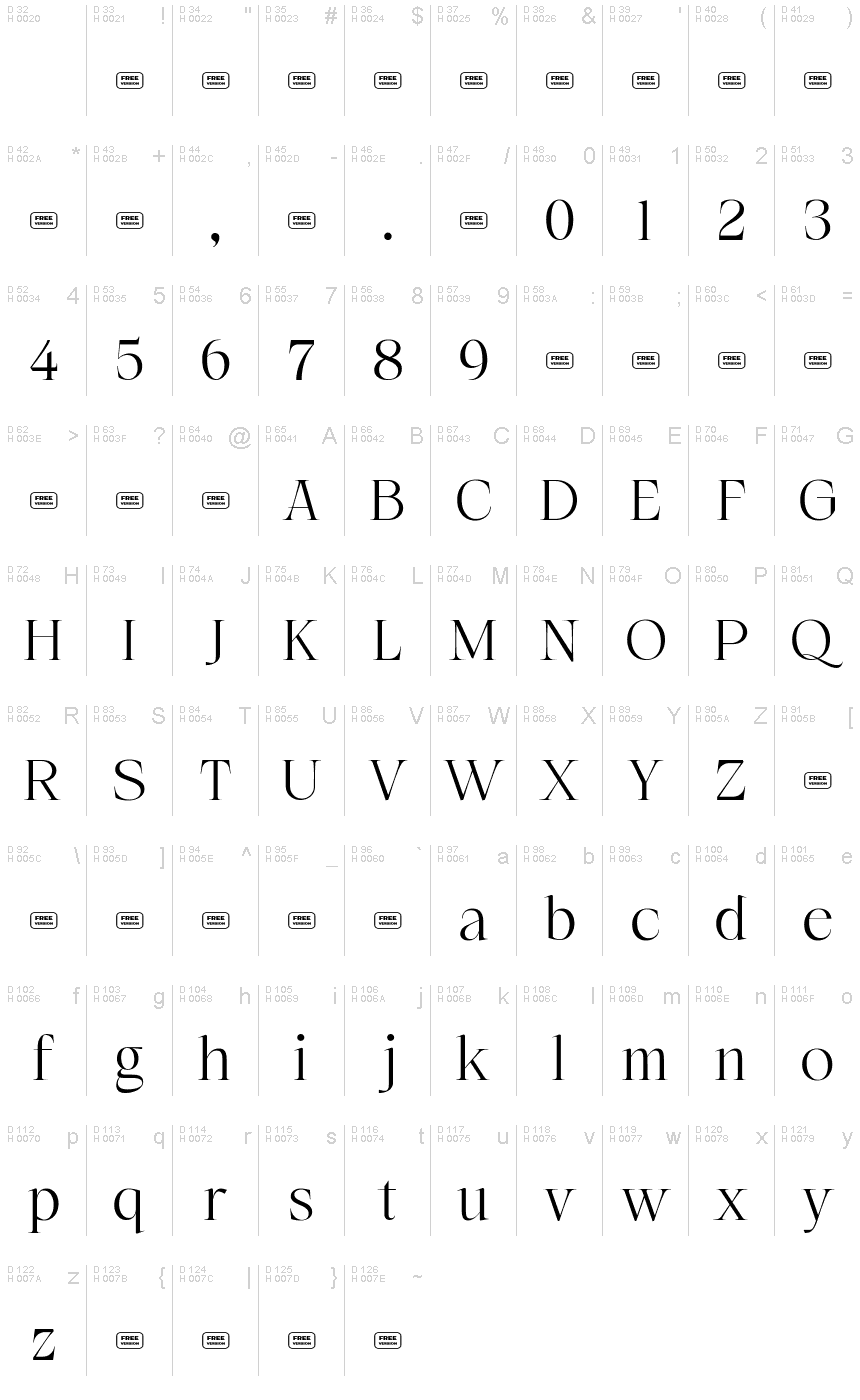
GLAMORE Free Trial
Glamore, crafted by the skilled artisans at Typefactoryco, is a testament to the harmonious union of classic charm and modern finesse. As a clean serif typeface with a semi-light weight, Glamore exudes an air of sophistication that is both refreshing and timeless. Its design strikes the perfect balance between elegant contours and streamlined legibility, making it an impeccable choice for those seeking to imbue their projects with an understated yet sumptuous aesthetic.
The versatility of Glamore is unmatched; whether it graces the pages of a luxury magazine or sets the tone on a high-end branding project, it consistently delivers an exquisite visual experience. Its traditional roots are seamlessly infused into its contemporary style, allowing designers to craft narratives that resonate across various mediums – from print to digital landscapes.
With Glamore's unique blend of classic elegance and contemporary clarity, your creative endeavors will capture attention with both grace and strength. Use this typeface when your project demands not just beauty but functionality as well, achieving maximum impact through subtle sophistication.